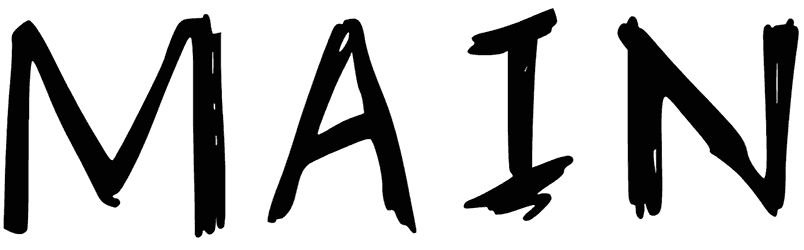
Main Font
Main is a script font that adds vintage appeal to your designs. This scribble font is a brilliant way to add a personal touch and extraordinary character to your designs that immediately evokes a pleasant feeling in the audience.
For this reason, even without numbers, it stands out on the covers of magazines, books, and posters. This trash font is the best way to create a new path in your design world that will reach pleasant destinations.